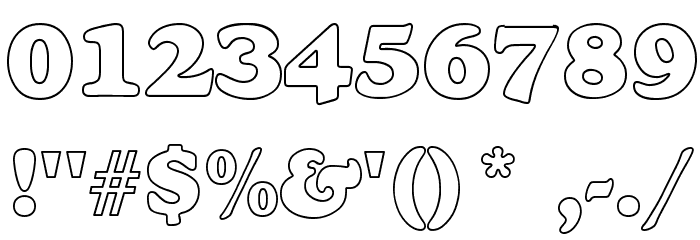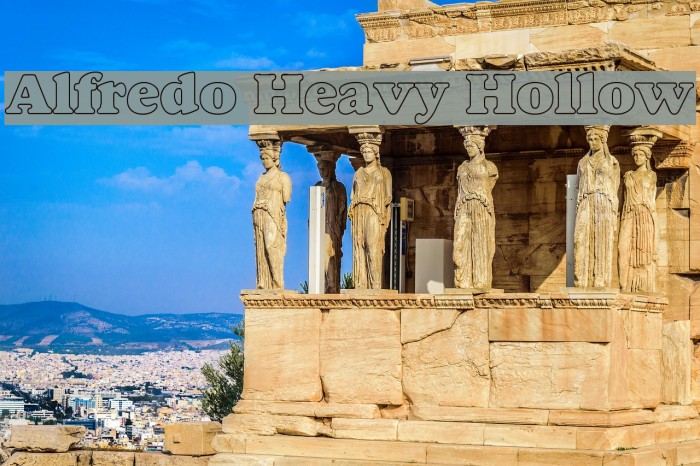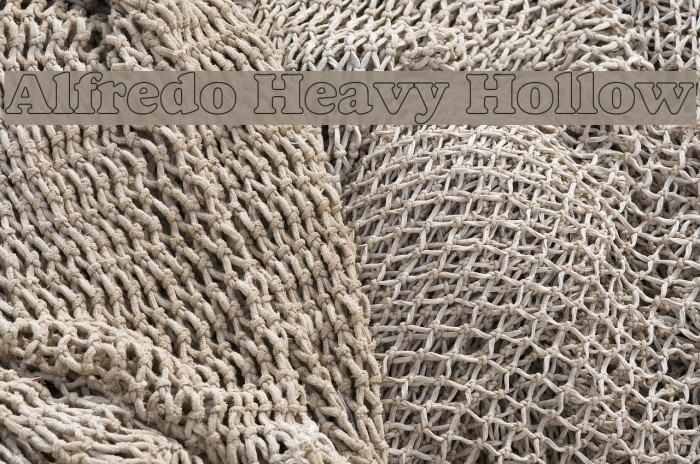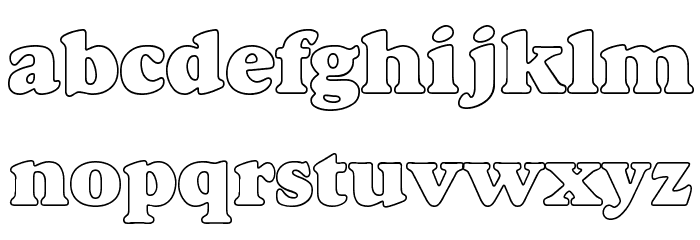
Alfredo Heavy Hollow Font
Alfredo Heavy Hollow Description
This font features a bold, hollow design with a strong presence. The uppercase and lowercase letters are crafted with thick outlines, giving them a striking and impactful look. The characters are well-proportioned, maintaining a consistent style throughout the alphabet. The numbers and special characters follow the same design principles, ensuring uniformity across all elements. This font's hollow style adds a unique dimension, making it stand out in various design contexts. Its boldness and clarity make it suitable for attention-grabbing headlines and titles.
A bold, hollow font with thick outlines and a striking presence from Typewriter fonts.
- Proposed Projects: Ideal for posters, logos, headlines, and any design requiring a bold statement.